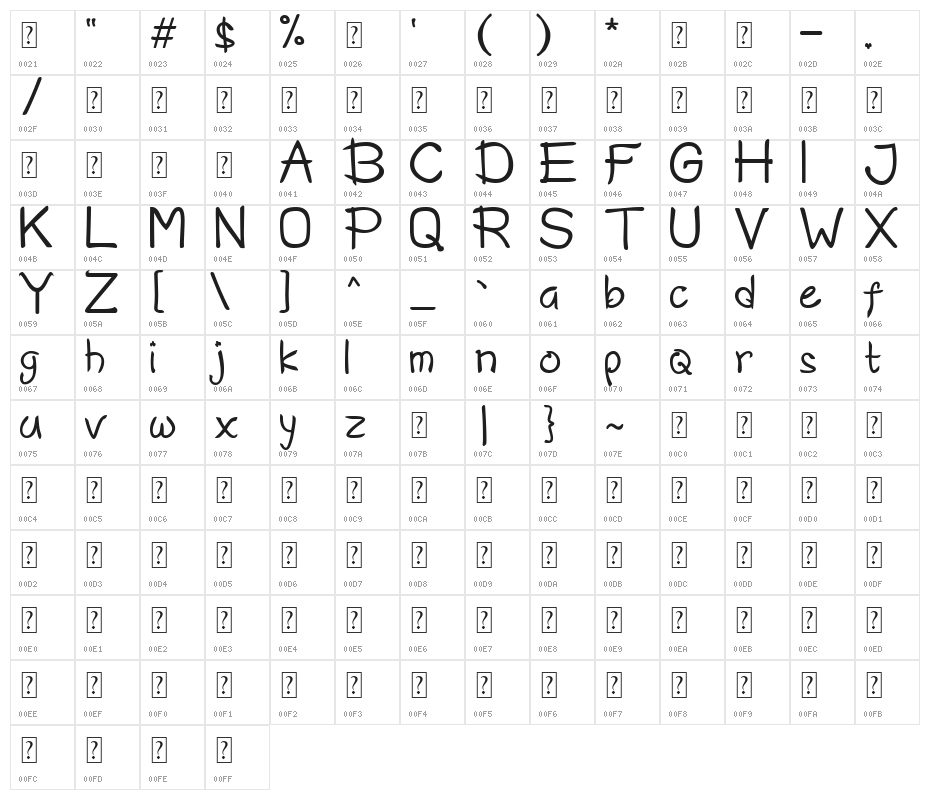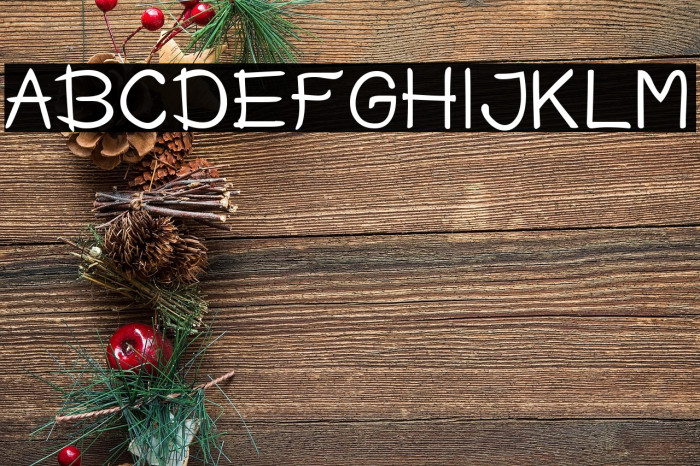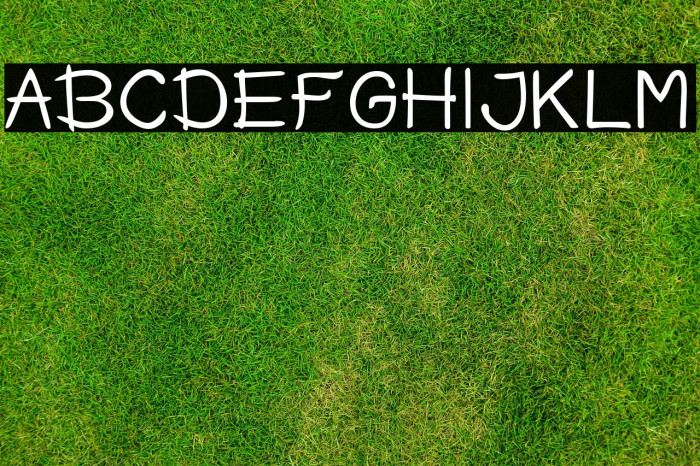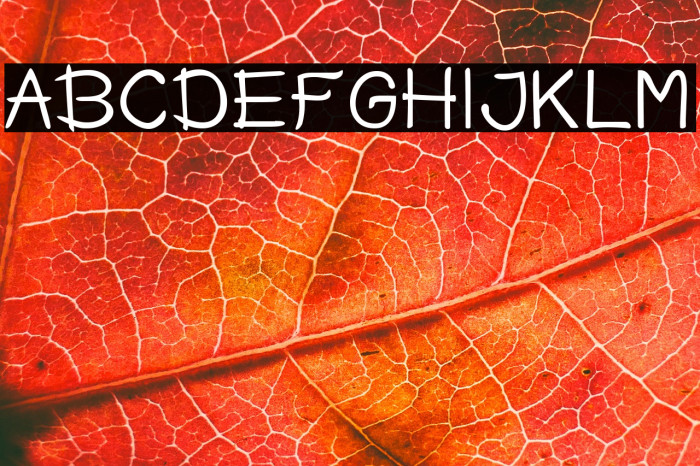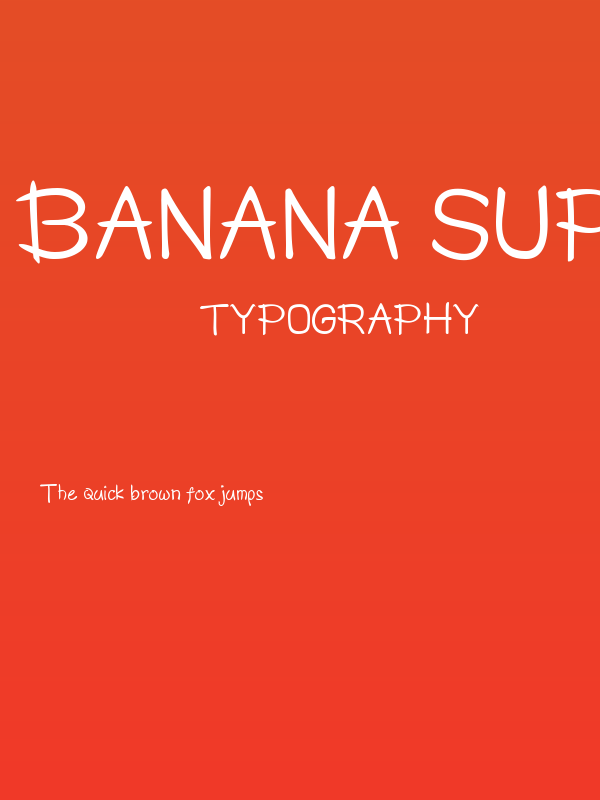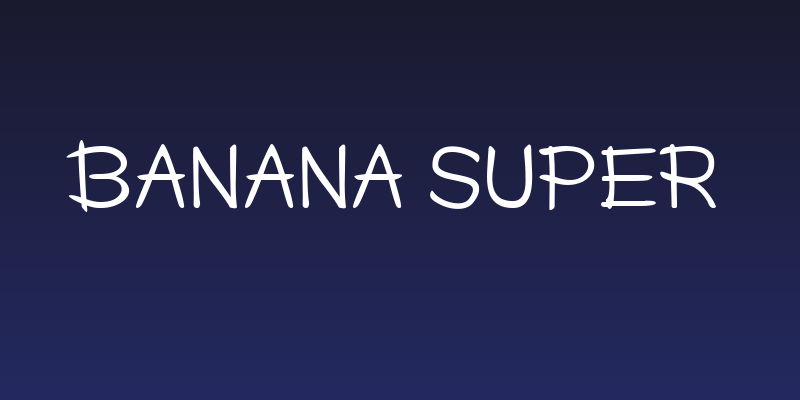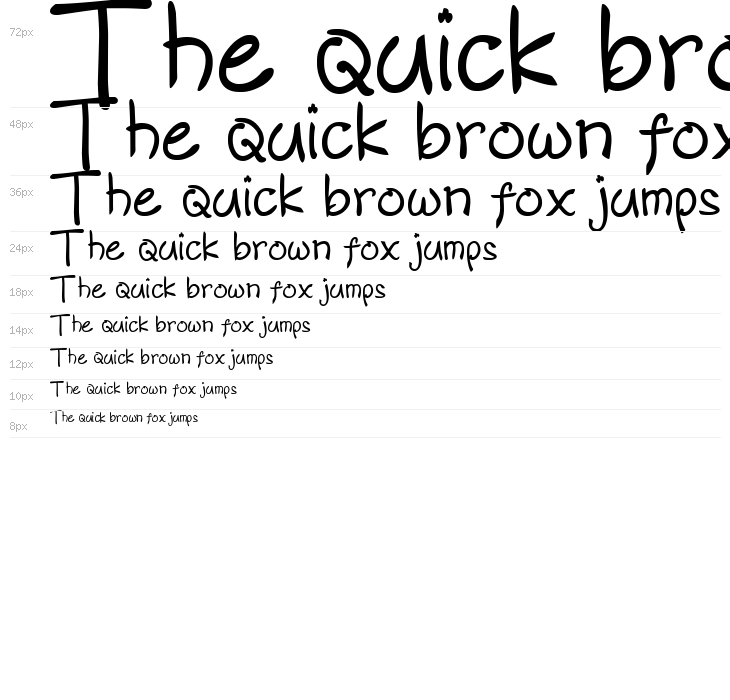
banana super Font
banana super Description
This playful and whimsical font features a hand-drawn style with irregular strokes and a casual, informal appearance. The uppercase letters are tall and narrow, while the lowercase letters maintain a consistent height with rounded edges, giving a friendly and approachable feel. The font includes a variety of special characters, enhancing its versatility for creative projects. Its unique character shapes and slightly uneven baseline add to its charm, making it ideal for designs that require a personal touch.
Use CaseHeadlines, Logos, Creative projects
Proposed ProjectsIdeal for children's books, greeting cards, playful branding, and creative posters.